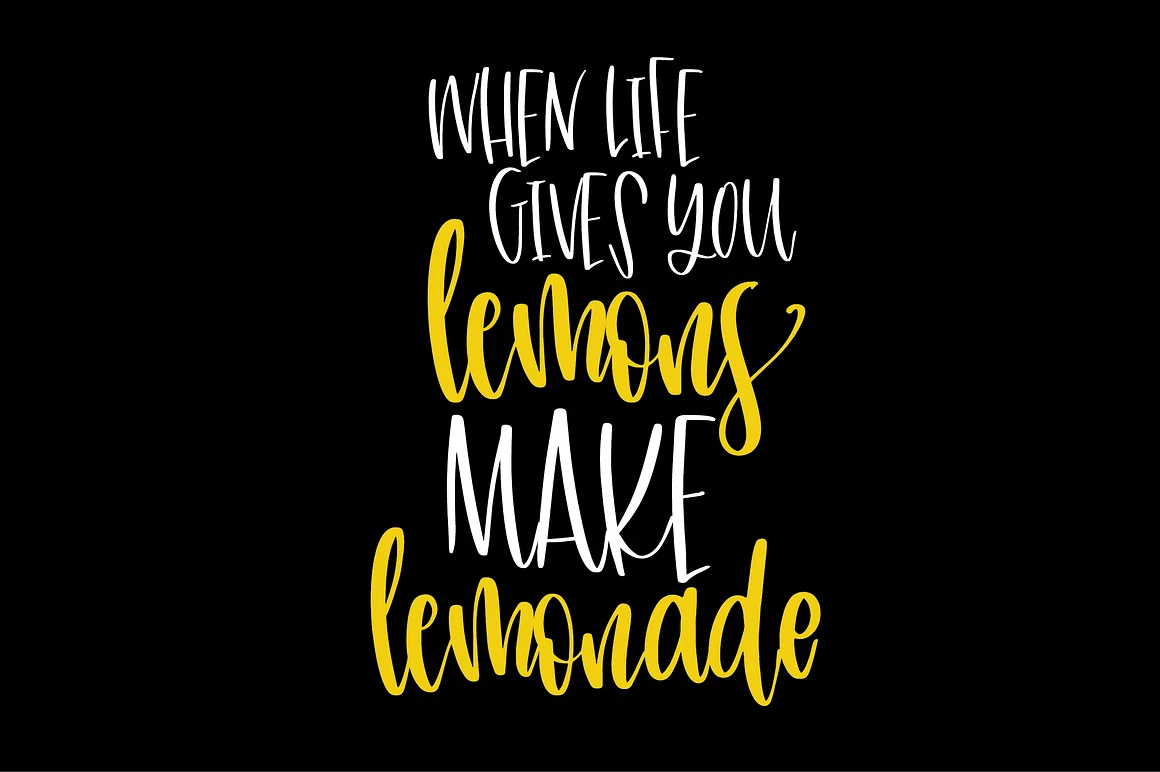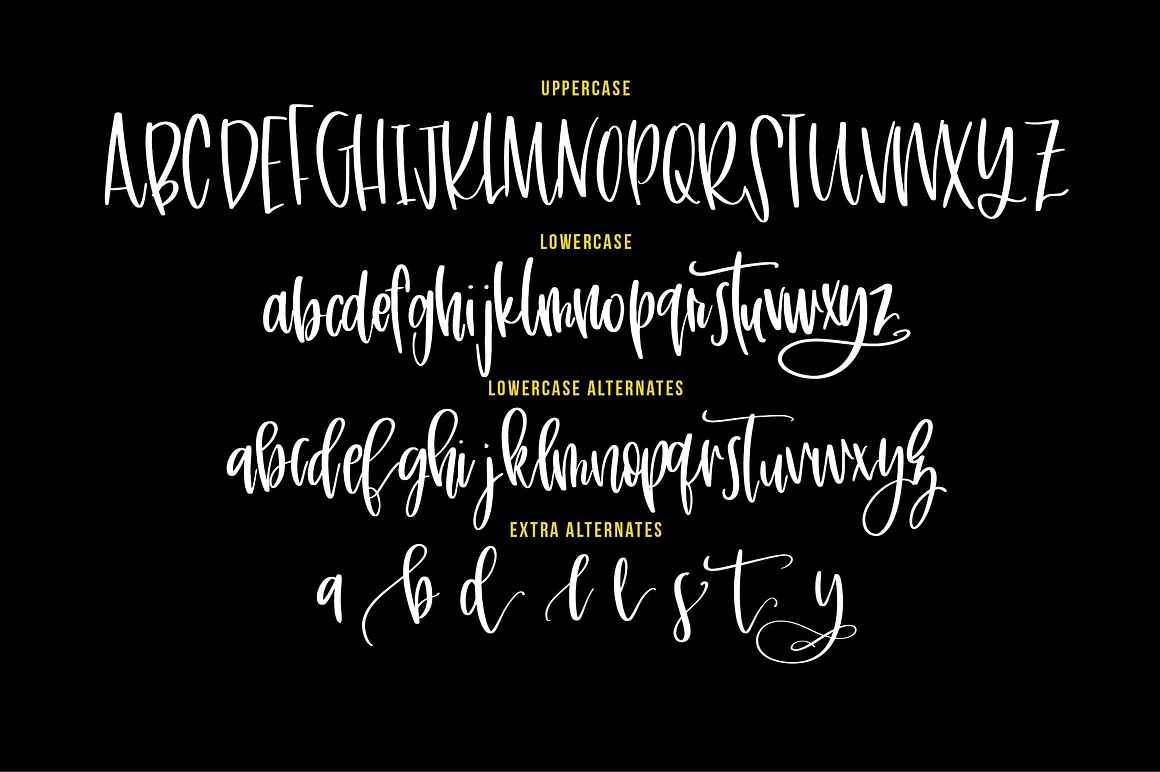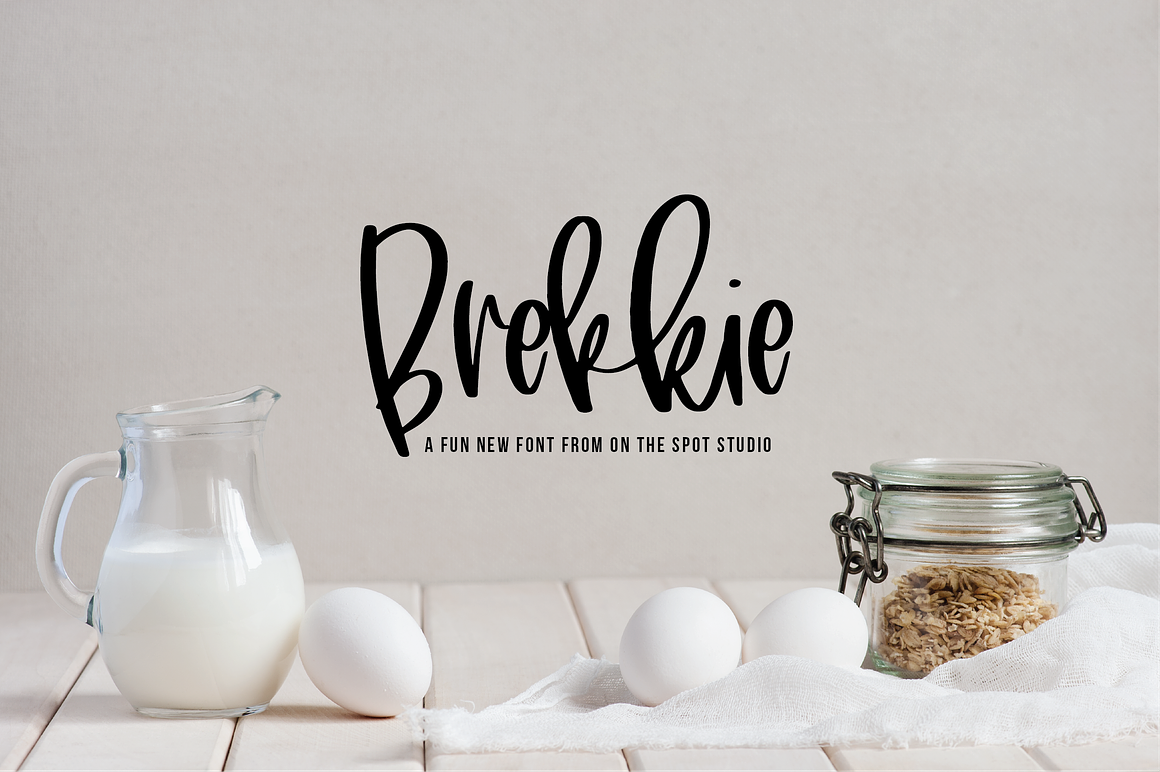
Brekkie Font
A good typeface communicates tone before a single word is read. Brekkie achieves this through strong typographic hierarchy support. The typeface brings a versatile sensibility to a broad range of creative disciplines, with distinctive character without sacrificing readability that holds up whether the work is print-first or screen-first.
In practice, Brekkie proves particularly effective for web design, social media graphics, advertising campaigns, signage systems, logo design. Designers reaching for it find that the type decisions feel resolved rather than laboured — a useful quality when client timelines are tight.
The proportions balance x-height, cap height, and ascender length to produce a face that reads confidently at body copy sizes without losing presence at display scale. Sidebearings were derived from visual rhythm testing rather than mathematical calculation alone.
The range of applications extends to product labels, packaging design, editorial layouts, annual reports. That breadth is deliberate: the proportions and spacing were stress-tested across a wide range of mock briefs before the typeface was finalised.
At smaller sizes the design retains its character without becoming cluttered. This resilience across scales makes Brekkie equally suitable for a business card and a billboard — a useful property when assets must scale across a campaign.
Independent studios handling packaging and editorial work find Brekkie a reliable choice for projects that demand both personality and restraint. The design avoids the self-conscious quirkiness that dates quickly, settling instead for considered distinctiveness that holds up over time.